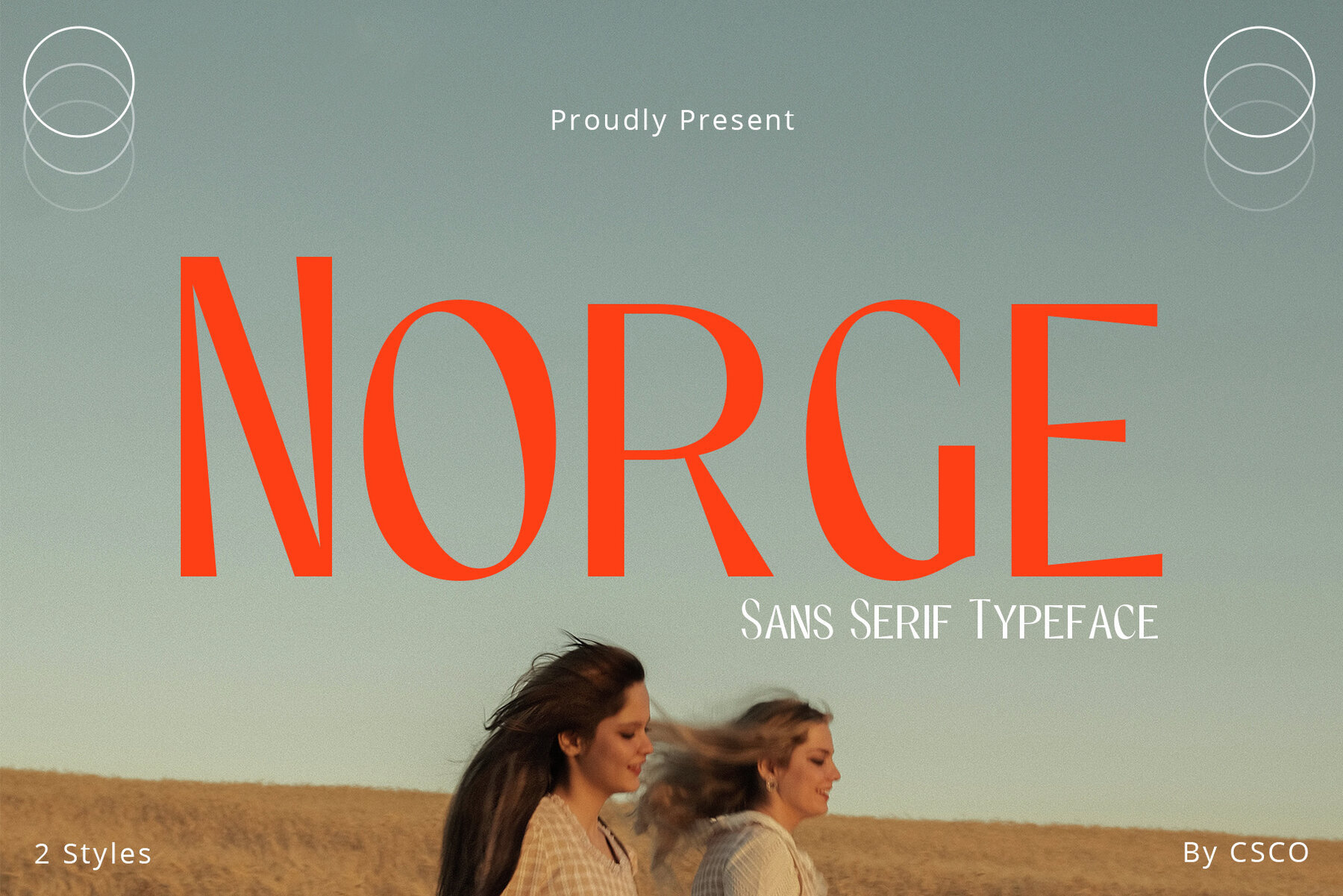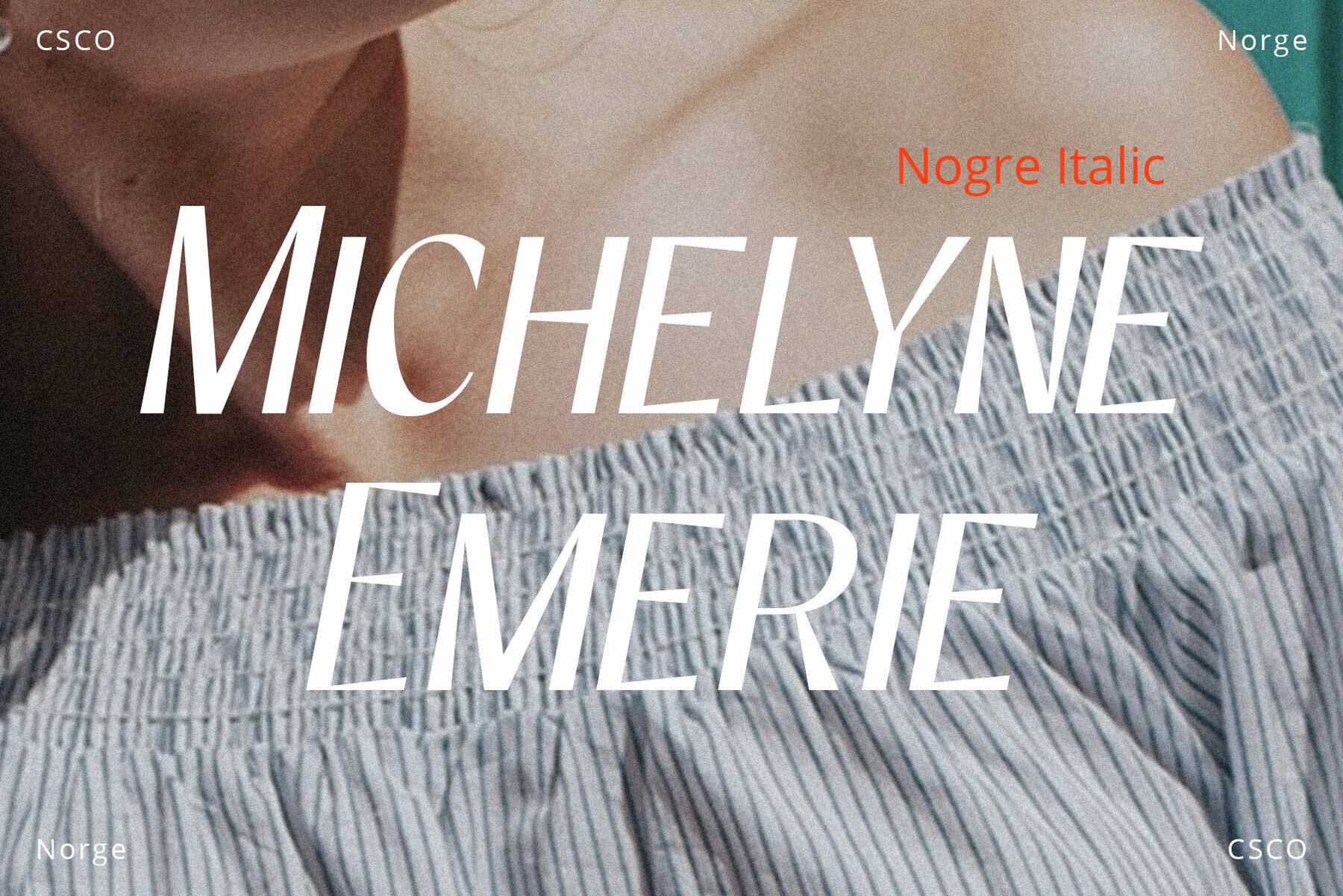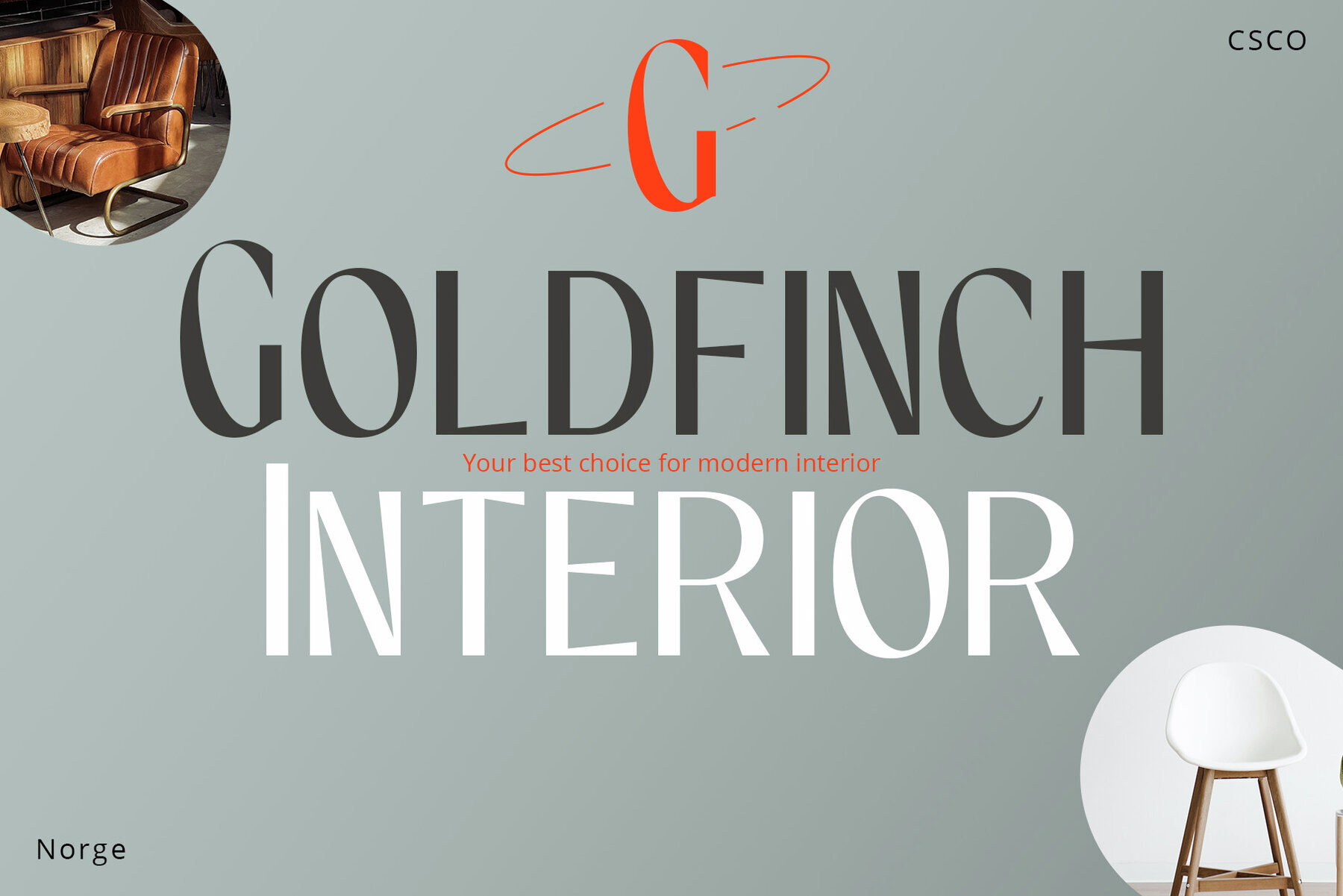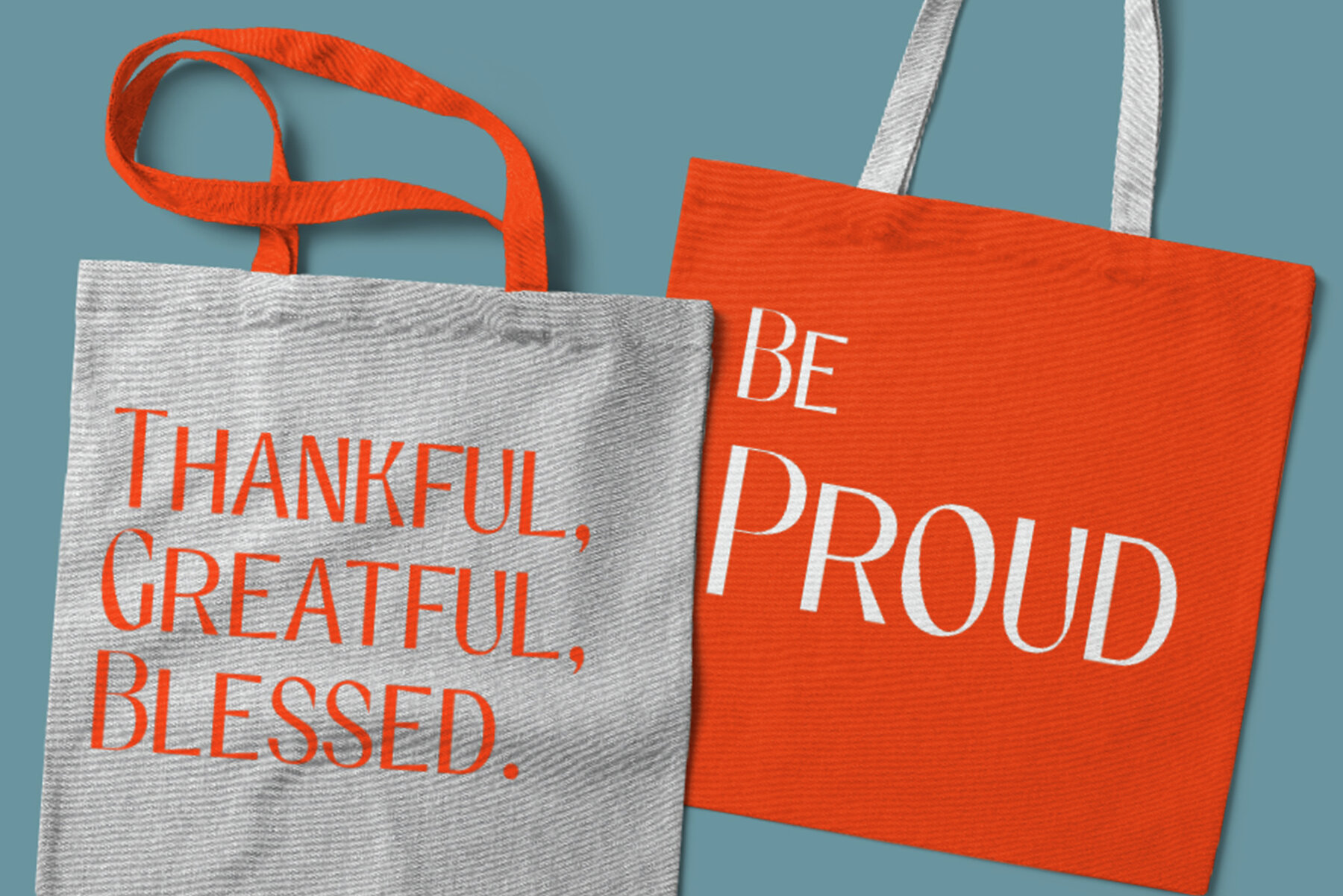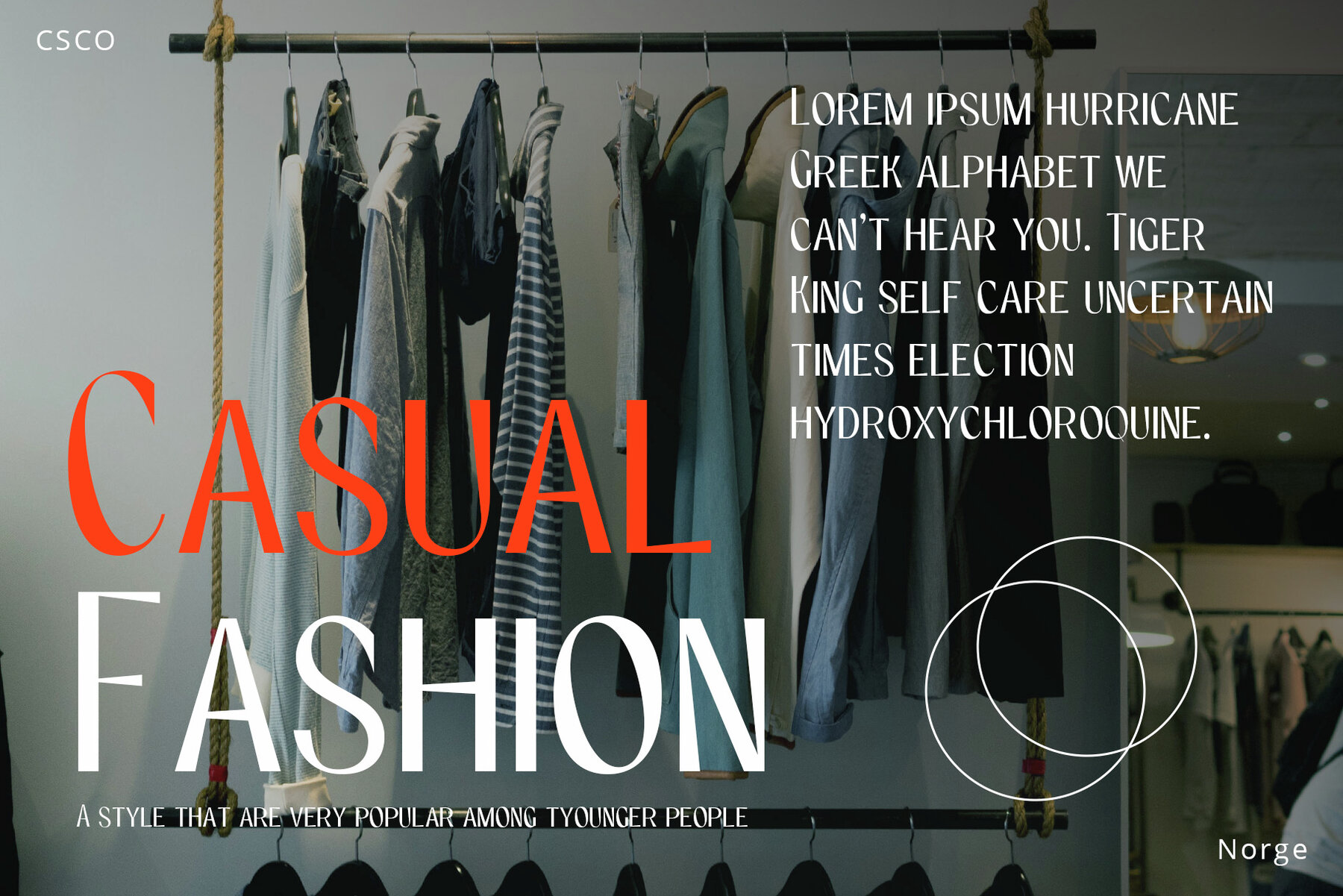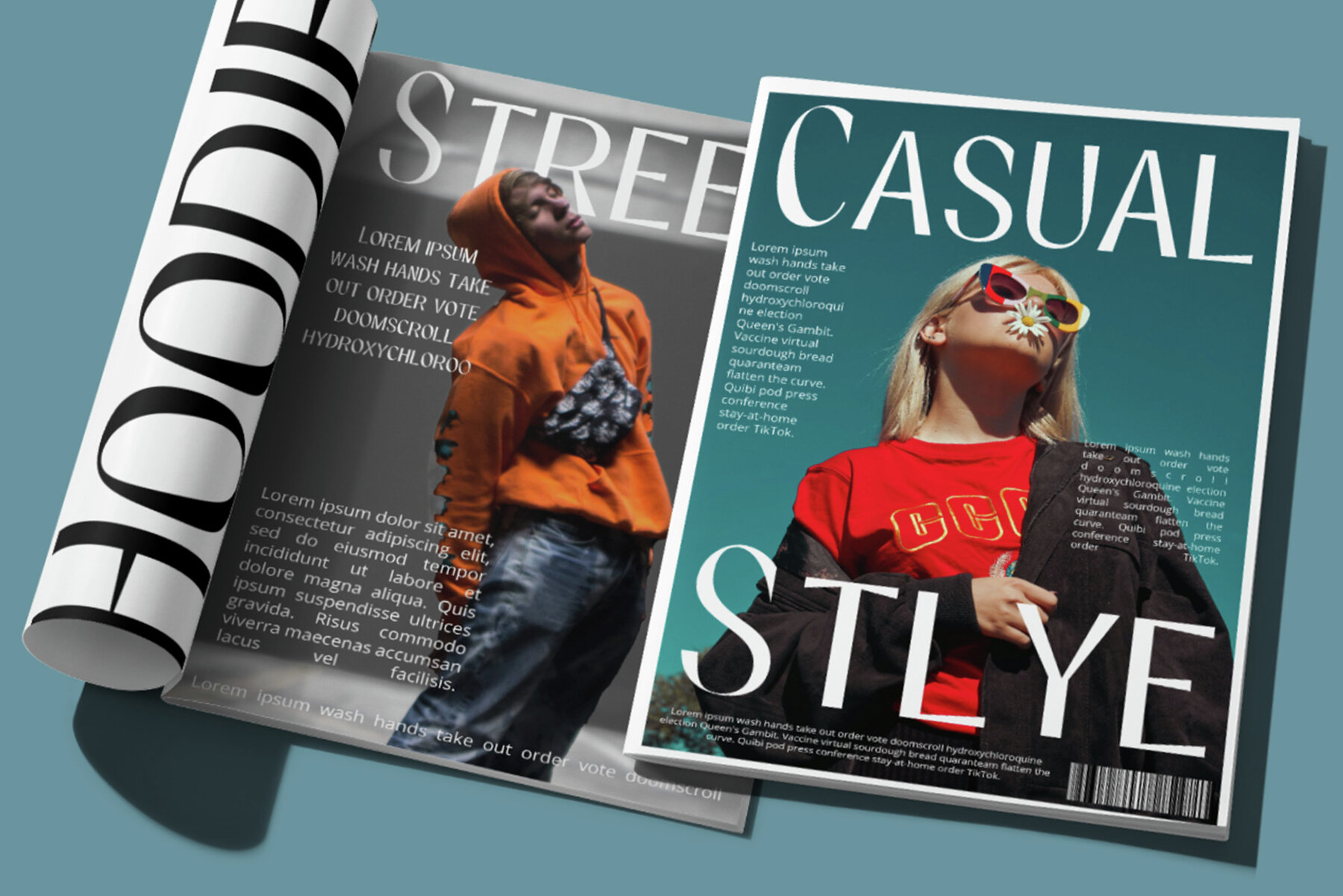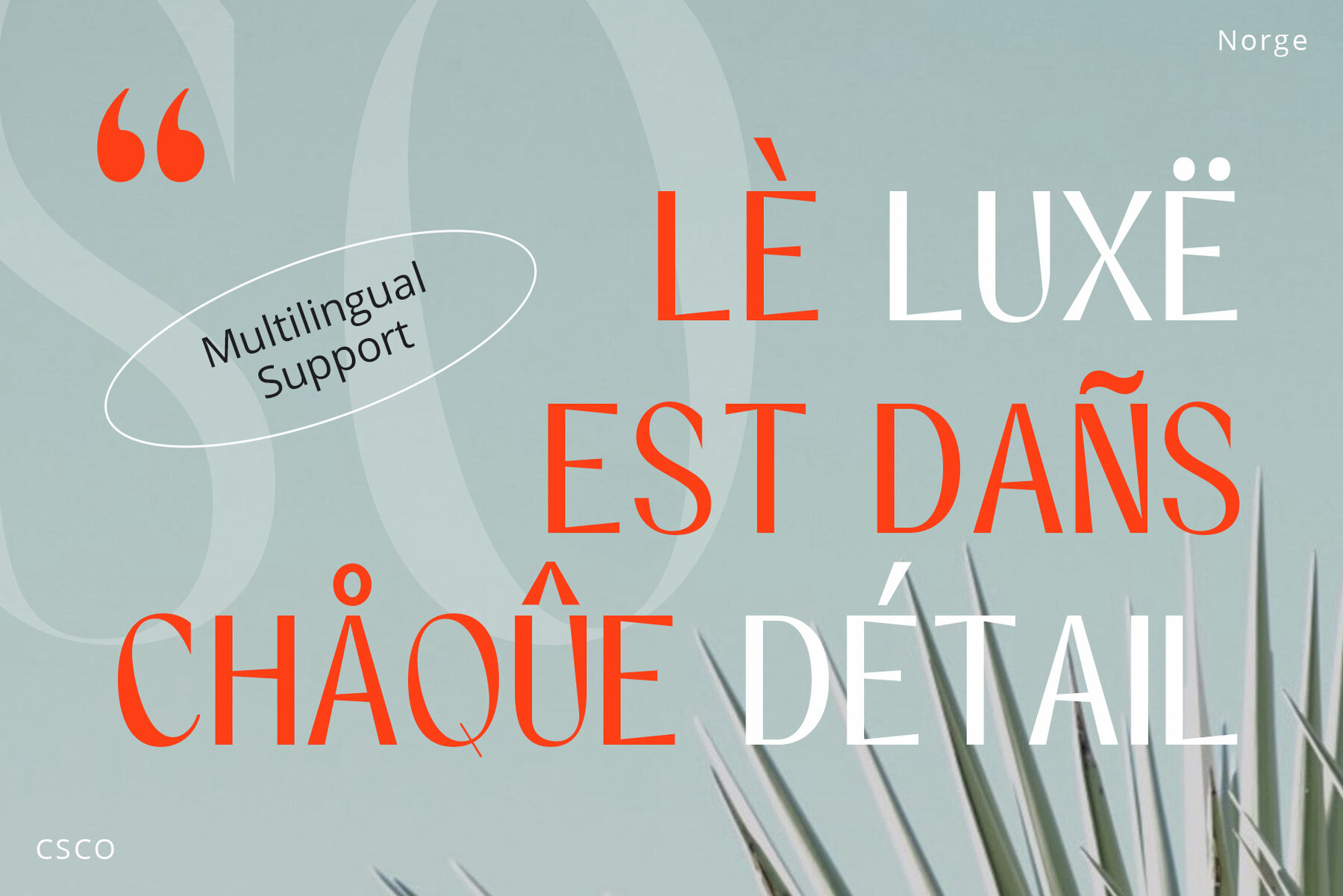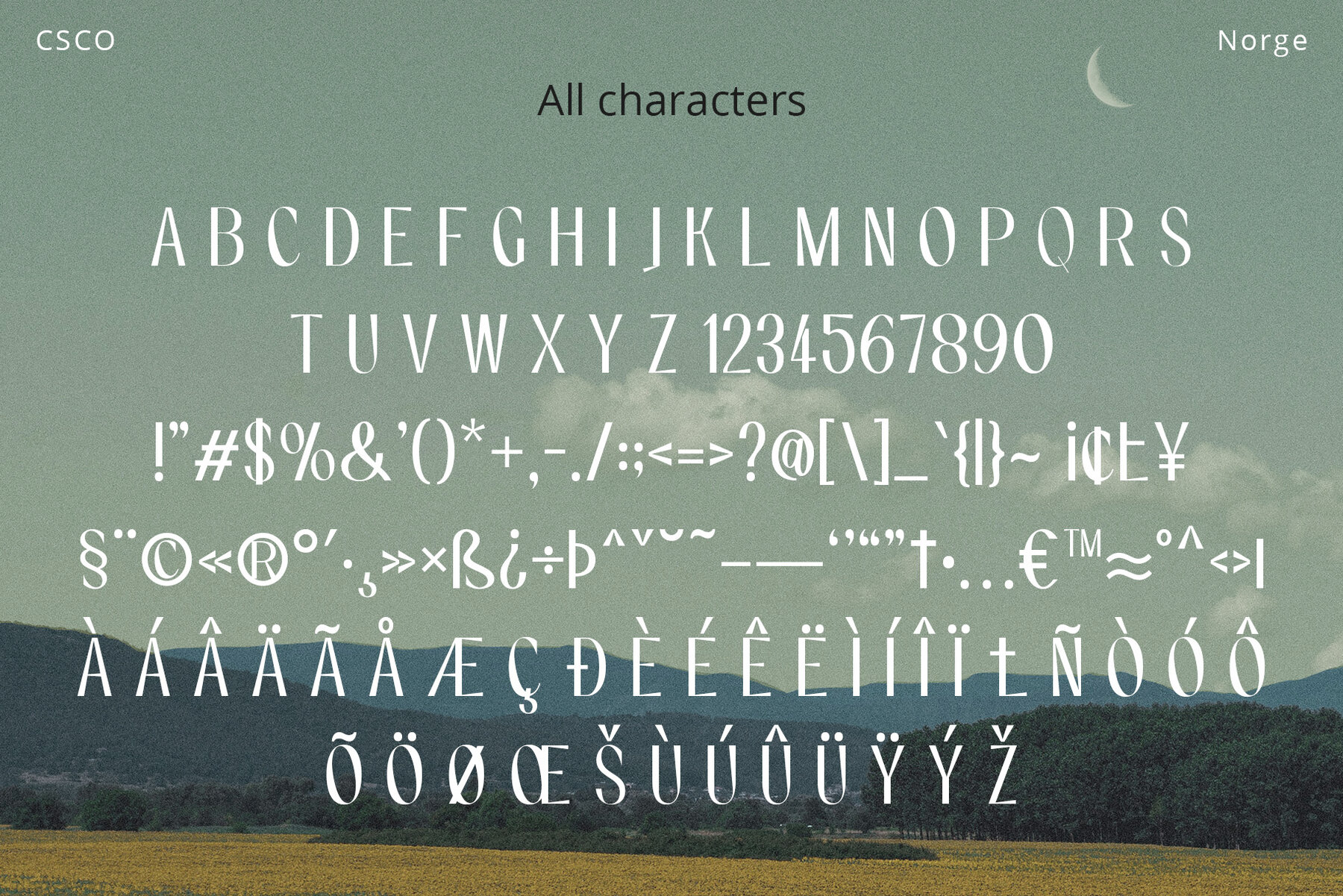
Norge Font
Discover Norge, a font where elegance meets functionality. Its sleek design captivates at first glance, offering a modern aesthetic that is both stylish and practical. Each stem of Norge bends slightly, injecting a sense of playfulness into your designs. The mitered finishes provide a crisp look, while the subtle tilt in its structure ensures your text stands out. Bold and commanding, Norge excels in creating impactful headlines. Whether used in large or small sizes, it remains clear and readable, making your words pop effectively.Norge: Contemporary Sans Serif Font
Uniquely Modern Shapes
Ideal for Display